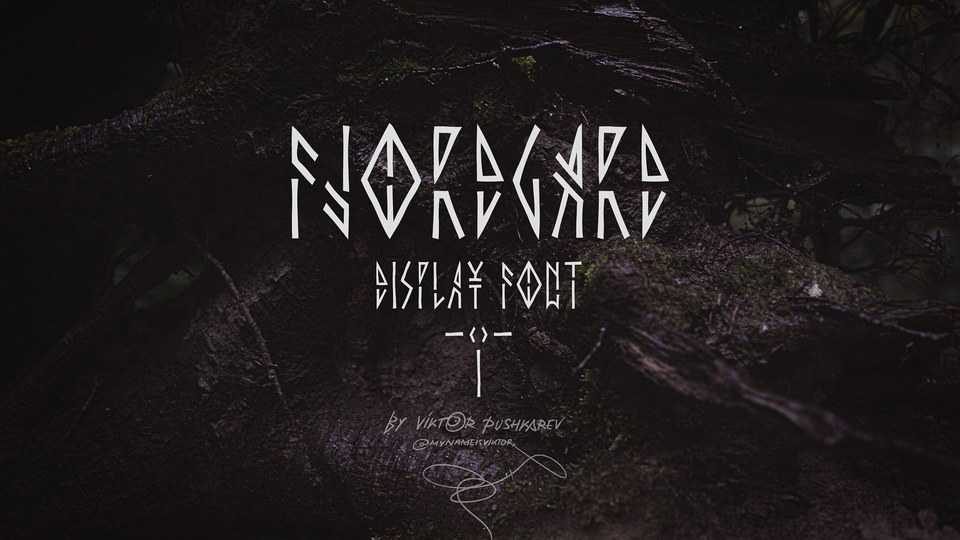
Download Fjordgard font, a display typeface that resembles some of the Nordic runes aesthetics whilst staying as close as possible to modern and legible letter shapes.